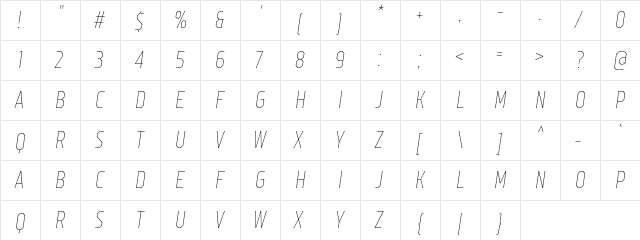
TT Octas Thin Italic DEMO Regular Font Preview
Design Context for TT Octas Thin Italic DEMO Typeface
TT Octas Thin Italic DEMO is a composed and adaptable typeface that performs quietly and consistently across a wide range of design contexts. The slanted form adds forward momentum and visual energy. The delicate stroke weight brings airiness and refinement to layouts.
Pro Tip: Try TT Octas Thin Italic DEMO for annotation and caption copy alongside an upright companion — the contrast in angle creates a dynamic but ordered typographic system.